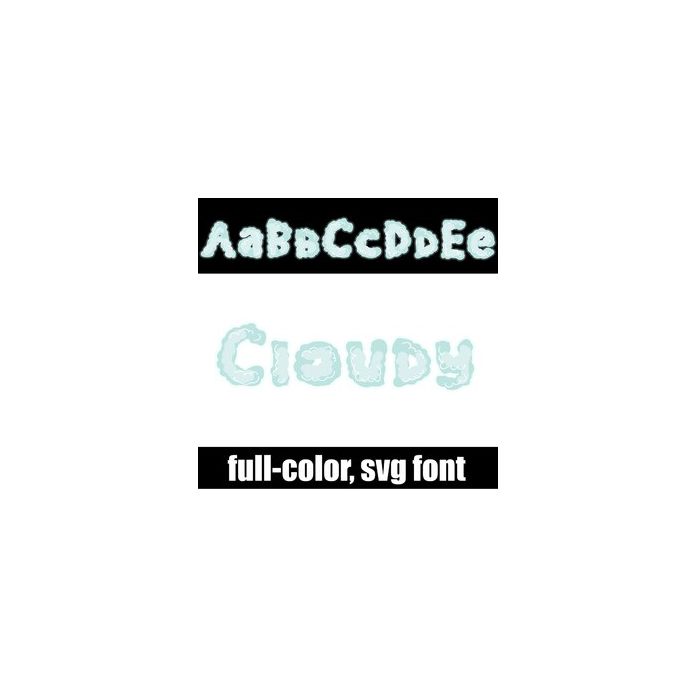
This full-color font features puffy, cloud-like lettering. This font works best for titles, displays, posters and more. Please note color fonts will show as black in non compatible programs. This font type is compatible with Silhouette Studio.